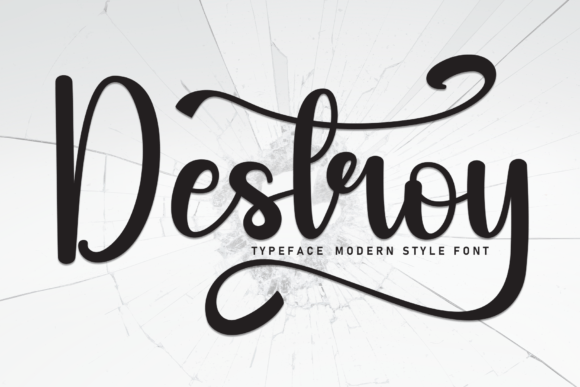
Journey into a world of enchanting elegance with Destroy, the captivating script font that adds a touch of irresistible charm to your digital creations. Crafted with meticulous detail by the visionary minds at Strongkeng Old, Destroy is not just a font; it's an artistic expression of joy and playfulness.
Discover the world of Destroy, a whimsical handwritten display font that captures the essence of spontaneity and creativity. Its charming imperfections and playful curves lend a unique personality to your designs, making them stand out from the ordinary. Unleash your imagination and experience the endless possibilities that await you with Destroy.
From the delicate swirls of its uppercase letters to the graceful flourishes of its lowercase, Destroy possesses an undeniable charisma that captivates audiences. It dances across the screen, evoking a sense of wonder and delight, leaving a lasting impression on all who encounter it.
With Destroy, you hold the power to transform ordinary designs into extraordinary masterpieces. Whether you're crafting wedding invitations that exude romance and elegance or creating eye-catching logos that demand attention, Destroy's versatility knows no bounds. Let your creativity soar and redefine the boundaries of design with this enchanting font.
Embrace the beauty of imperfection and embrace the charm of Destroy, a font that celebrates the uniqueness and individuality of your artistic vision. As you weave your words together, Destroy will infuse your designs with a touch of whimsy and playfulness, leaving your audience enchanted and eager for more.